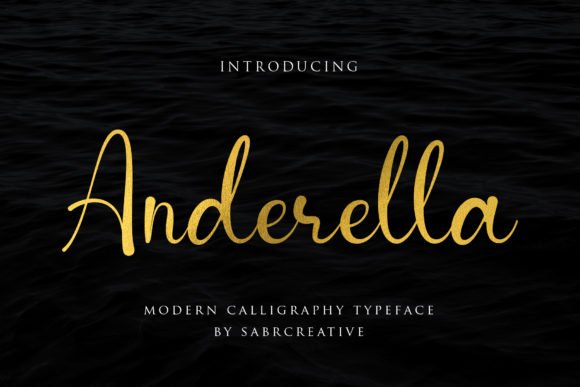
Introduction to Anderella Font
Anderella is a beautiful and bold handwritten font with an organic feel.
Get inspired by its bold swashes, and turn any design project into a stunner .
Why Choose Anderella Font?
Anderella Font offers exceptional quality and versatility, making it a valuable addition to your design toolkit. Whether you’re creating for personal projects or commercial use, Anderella Font delivers professional results.